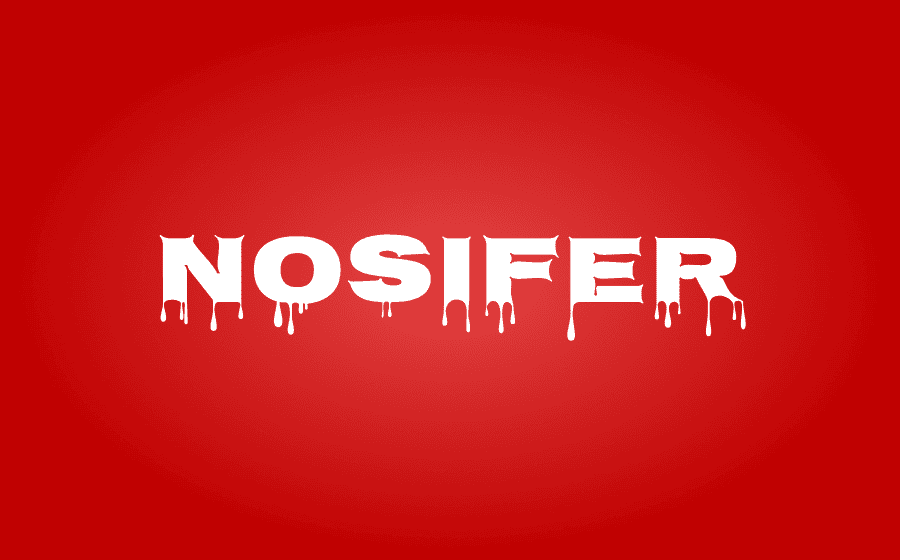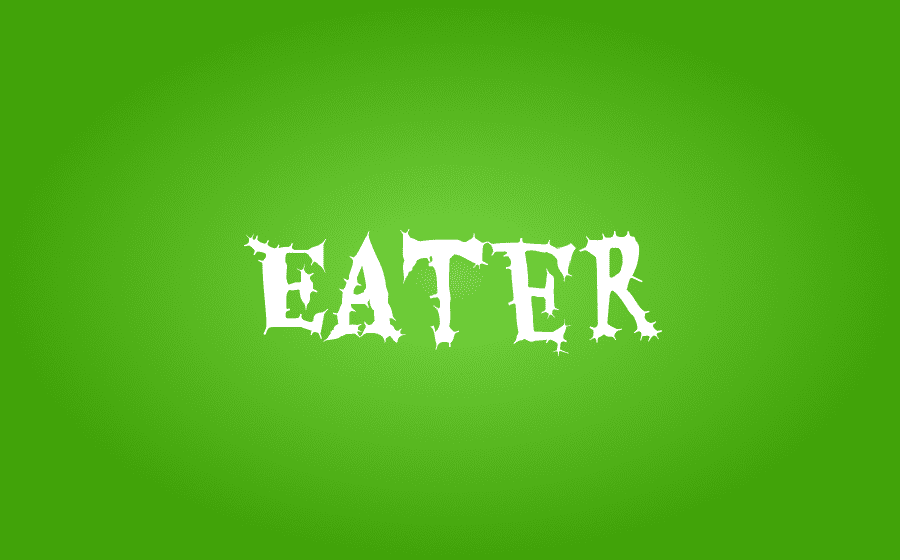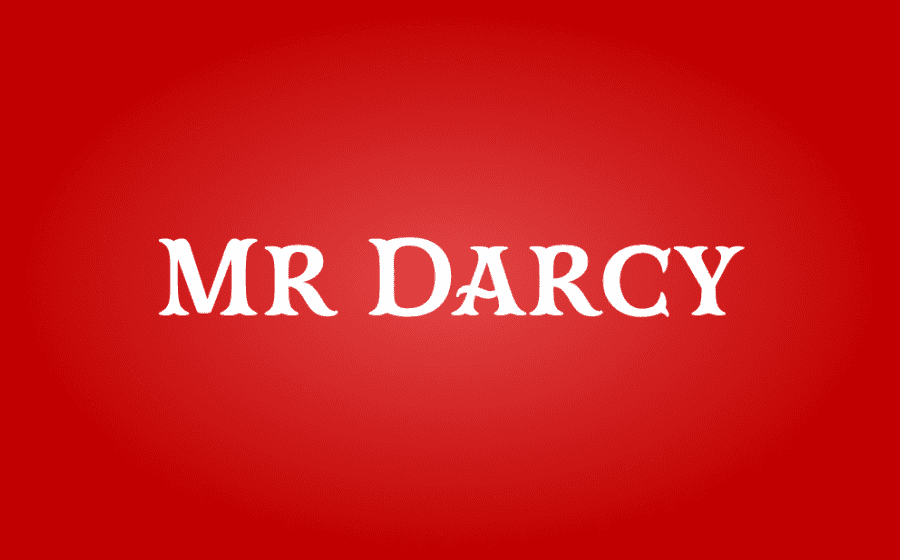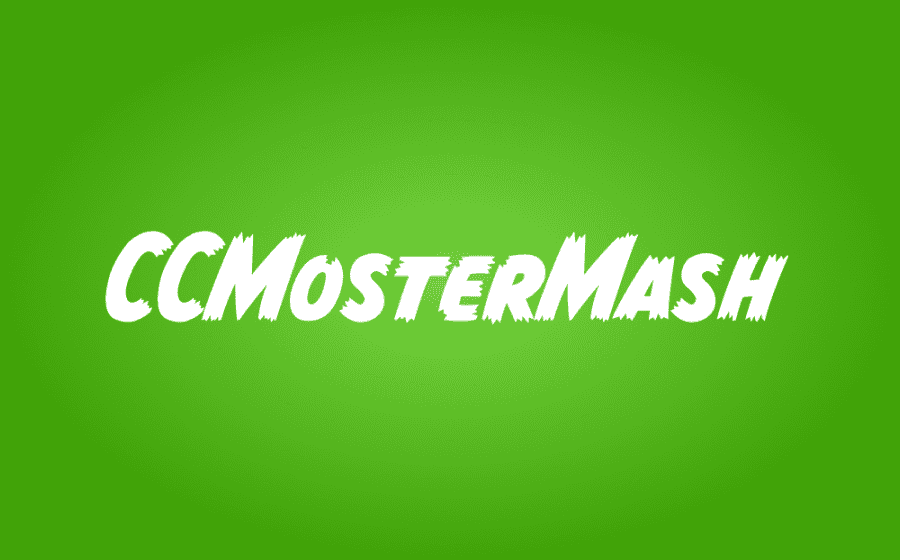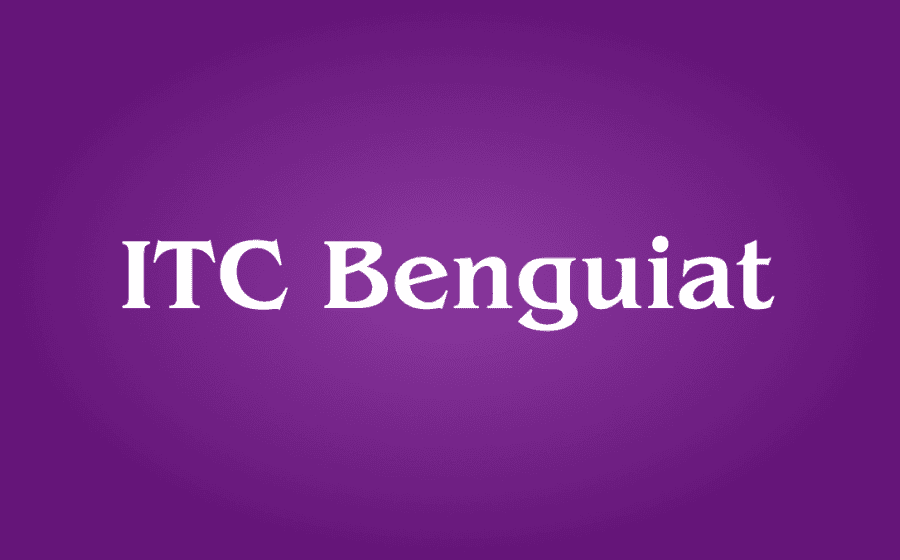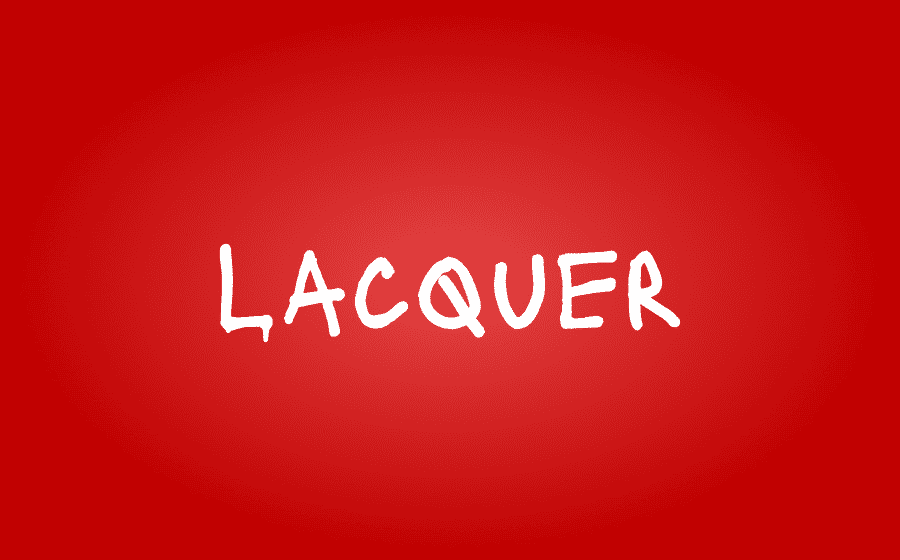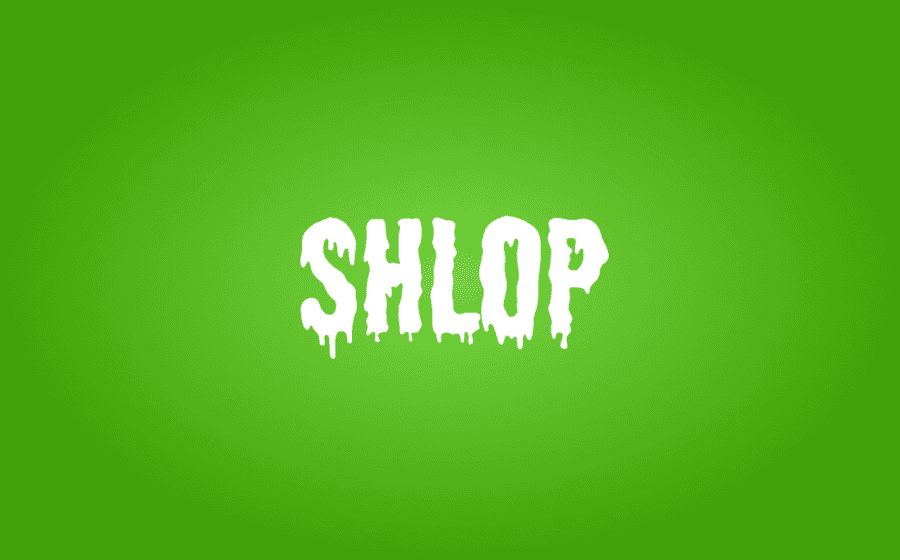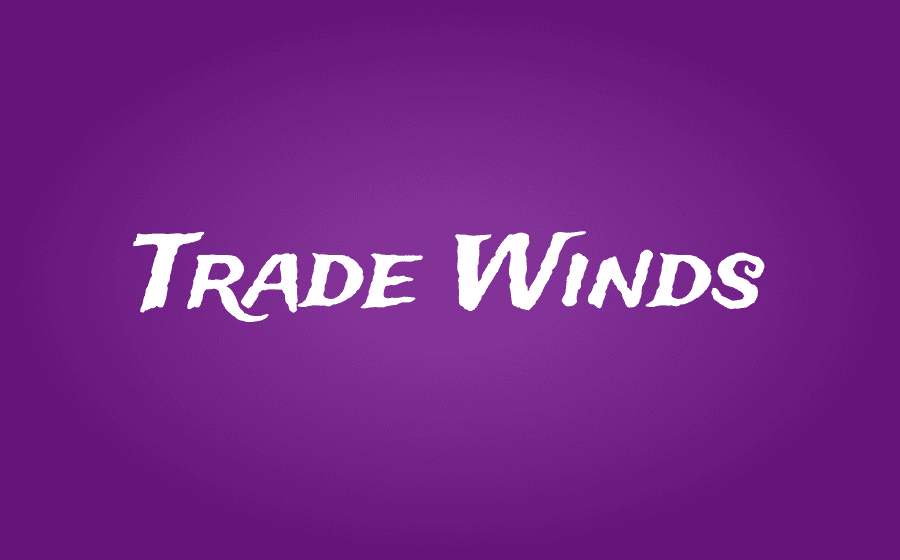
It’s Spooky Season again! Buckeye Innovation’s Senior Visual Designer, Tony, has been busy scouring the web to bring you the creepiest fonts for 2024. As Halloween approaches, he’s curated a handpicked selection of fonts that add an eerie touch to all your design projects. These fonts are perfect for bringing a festive feel to your Halloween posters, invitations, social media graphics, and more. Click on each font to download it today!
1. Nosifer
Nosifer
2. Eater
Nosifer
3. UT Forsaken Village
UT Forsaken Village
4. Mr Darcy
Mr Darcy
5. CCMonsterMash
CC Monster Mash
6. ITC Benguiat
ITC Benguiat
7. Laquer
Laquer
8. Shlop
Shlop
9. Trade Winds
Trade Winds
10. Astloch
Astloch